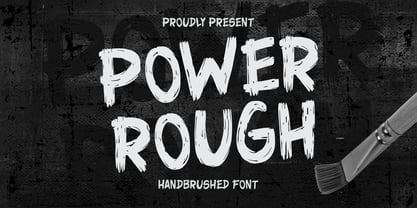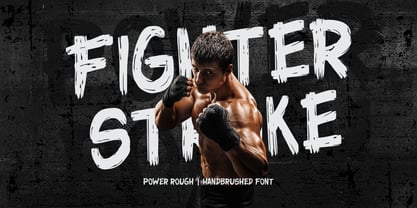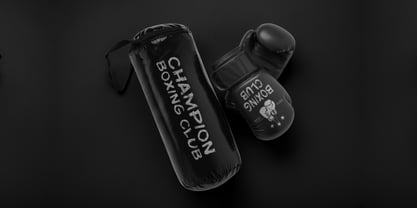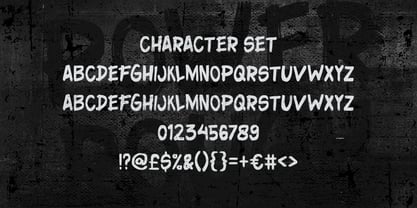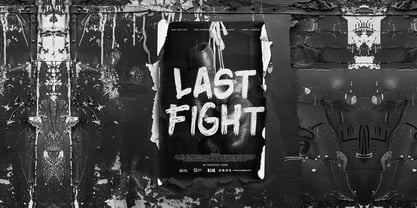
Power Rough
by Shanaf
The Power Rough Font Family was designed by Yesie Erma Yunita and published by Shanaf. Power Rough contains 1 styles. More about this family
Power Rough Texture Brush Font is a striking hand-brushed typeface designed to deliver raw energy and unapologetic strength. Each letter features bold, uneven strokes that mimic the authentic texture of a dry brush, giving the font a gritty and masculine appeal. Its rugged edges and textured finish create an impactful visual presence that feels alive and untamed. The font maintains excellent legibility despite its rough finish, making it ideal for designs that need intensity without losing clarity. With a tall structure and slightly irregular thickness, Power Rough Texture Brush Font exudes energy and character that stands out in any composition. This font is perfect for projects that require a bold, fearless statement. From posters, movie titles, and sports branding to music covers, merchandise, and motivational quotes, Power Rough Texture Brush Font commands attention effortlessly. It works brilliantly for logos, advertising campaigns, and event promotions that aim to convey power, aggression, or raw authenticity. Its versatility extends into packaging design, streetwear graphics, and editorial layouts where impact and individuality are essential. Whether used in headlines, large-format text, or striking labels, this brush font delivers the perfect balance of toughness and style. Power Rough Texture Brush Font is the ultimate choice for bold creatives ready to amplify their message.
Designers: Yesie Erma Yunita
Foundry: Shanaf